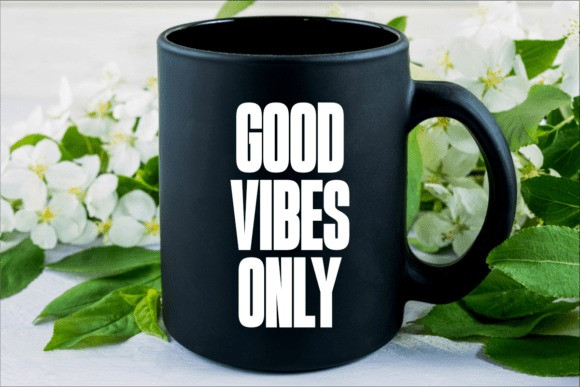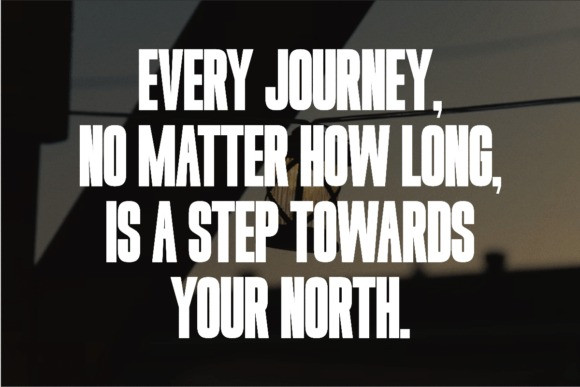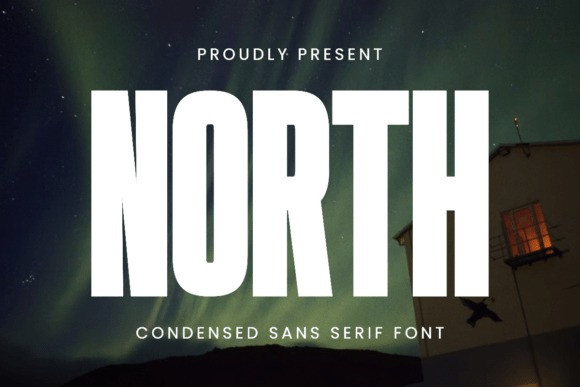
North Font
North Font is a bold, condensed sans-serif font designed to create a strong, modern, and professional impression. Its tall and sleek uppercase style makes it an excellent choice for impactful headlines, posters, branding, editorial design, sports graphics, and outdoor advertising. The clean and versatile look of North ensures it works perfectly for both digital and print projects that need bold and attention-grabbing typography.